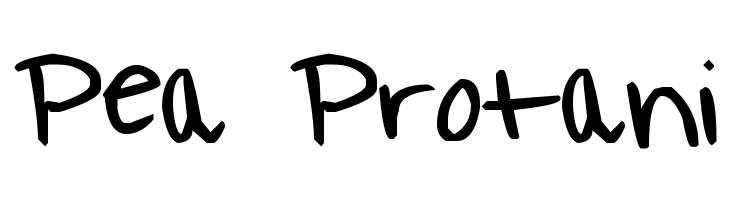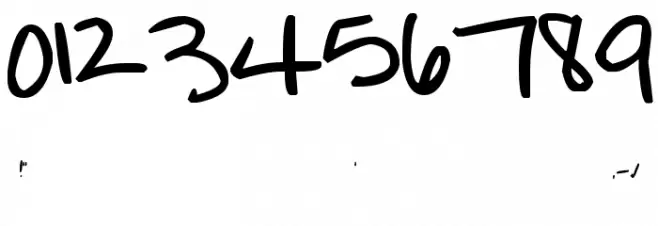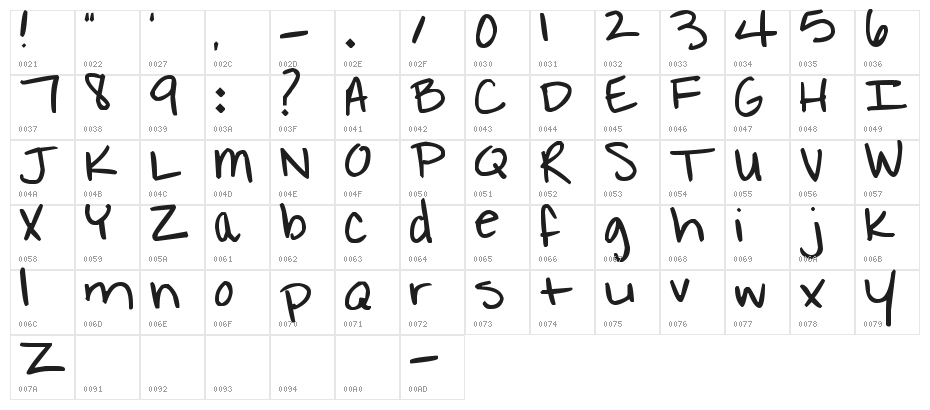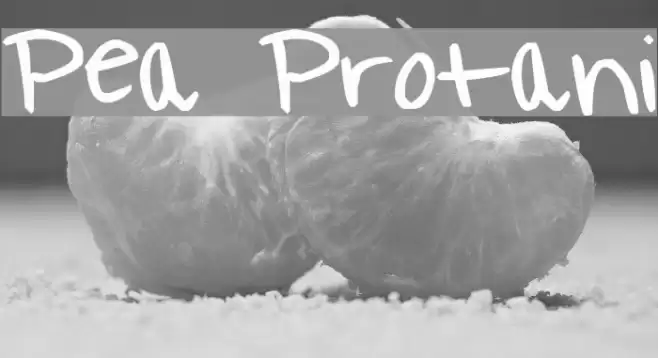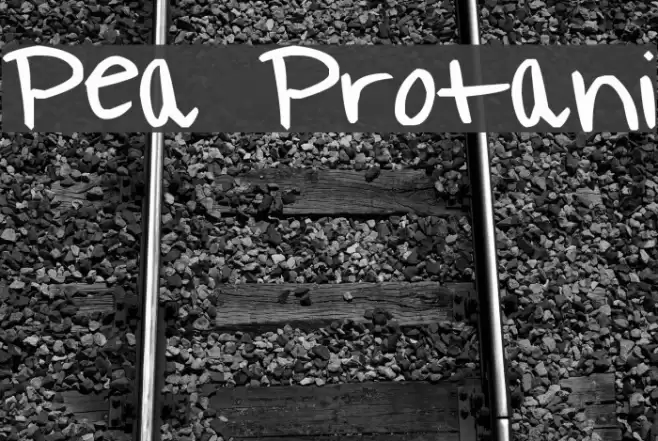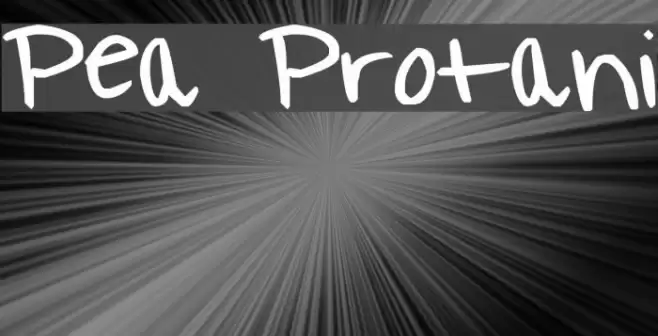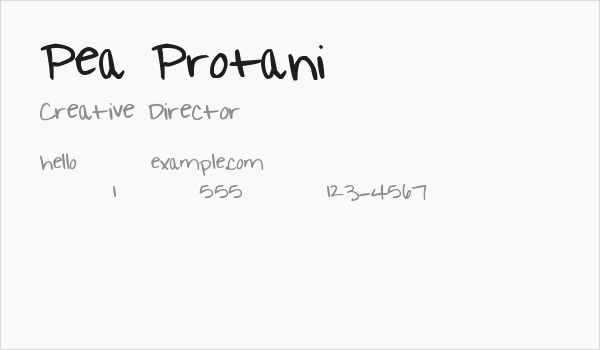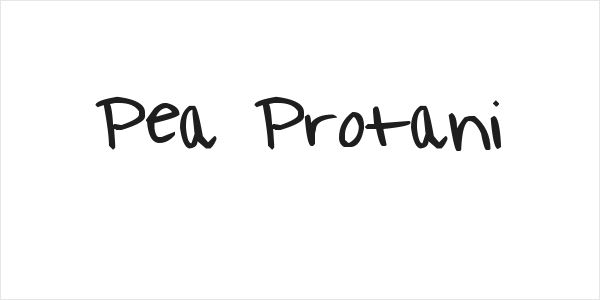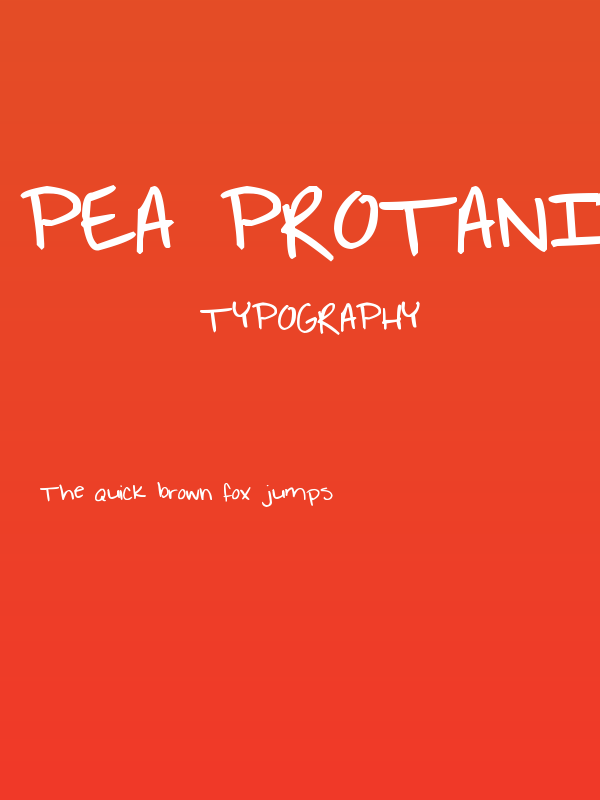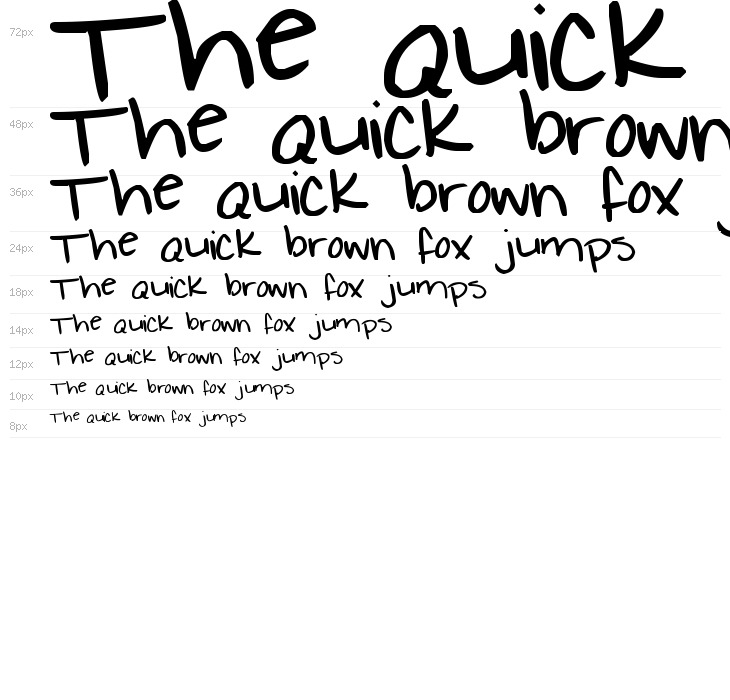
Pea Protani Font
Pea Protani Description
This playful and casual handwritten font exudes a sense of spontaneity and creativity. The letters are slightly uneven, giving it an authentic, hand-drawn feel. The strokes are bold and confident, with a consistent thickness throughout, which adds to its legibility. The characters are well-spaced, allowing for easy readability, while maintaining a lively and informal appearance. This font is perfect for projects that require a personal touch, such as greeting cards, invitations, or creative branding. Its friendly and approachable style makes it suitable for a wide range of applications.
| Use Case | Headlines, Logos, Informal text |
| Proposed Projects | Greeting cards, invitations, creative branding, personal projects. |